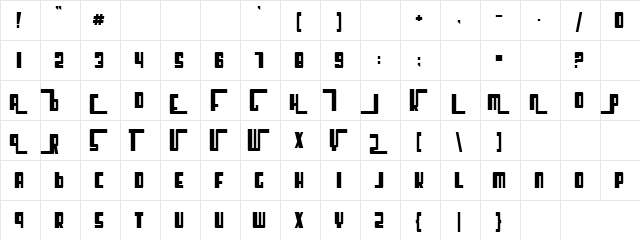
Limcy Bl Regular Font Preview
Limcy Bl Regular
Design Context for Limcy Bl Typeface
Limcy Bl is a composed and adaptable typeface that performs quietly and consistently across a wide range of design contexts.